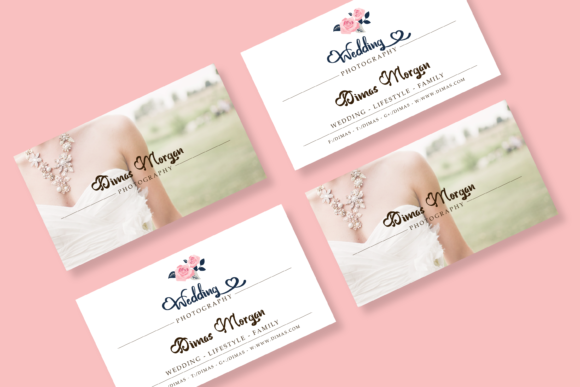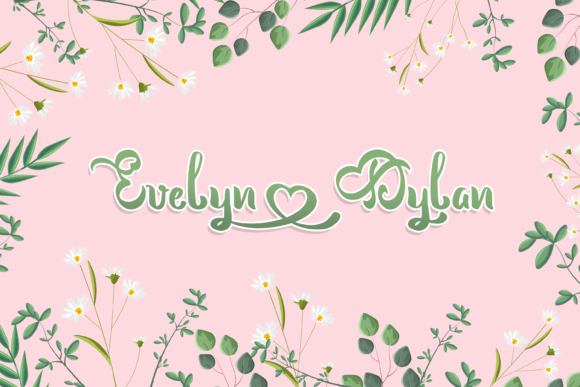
Vinolya Font
db-ku.com - Script & Handwritten -- Vinolya is a lovely, romantic and jolly script font. Warm and sweet, this font will turn each of your project ideas into real works of art. Have fun with this beautiful font and explore its endless variations.